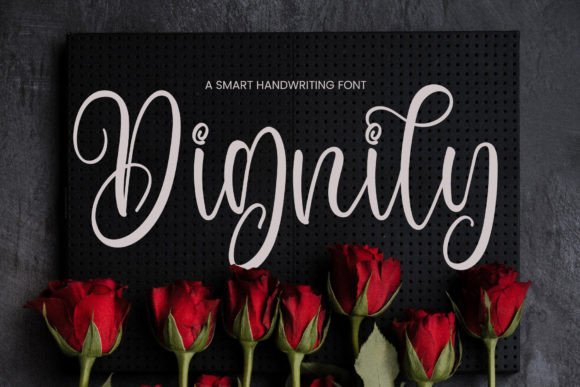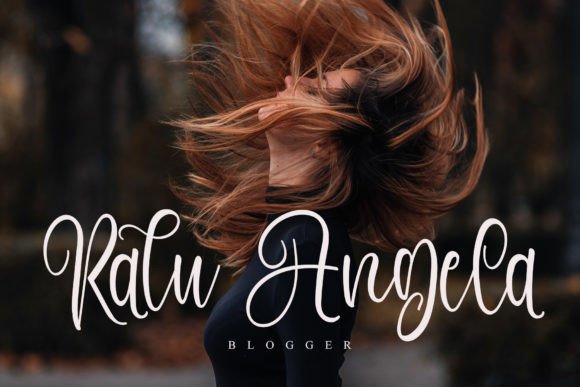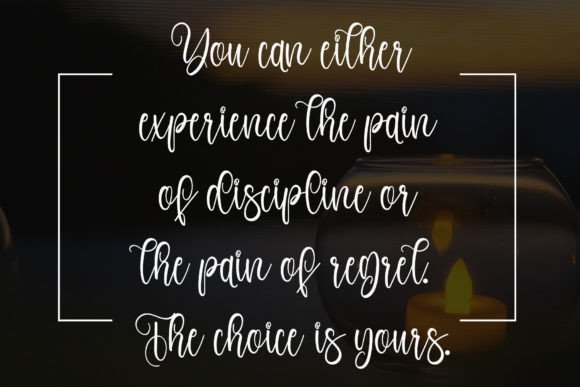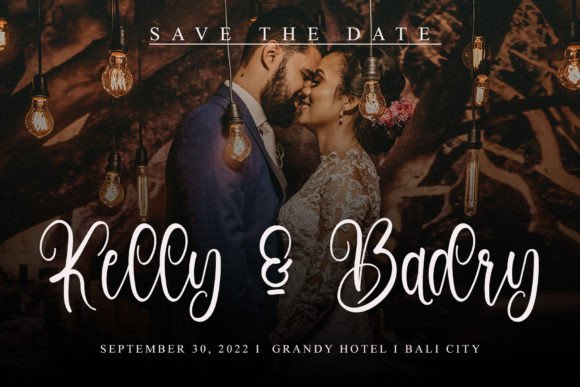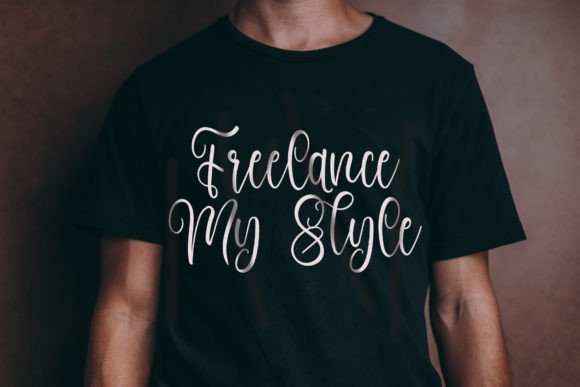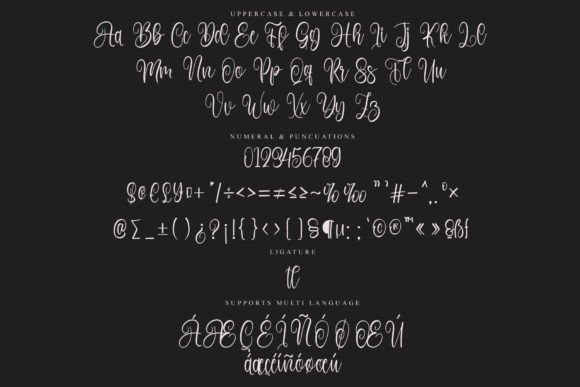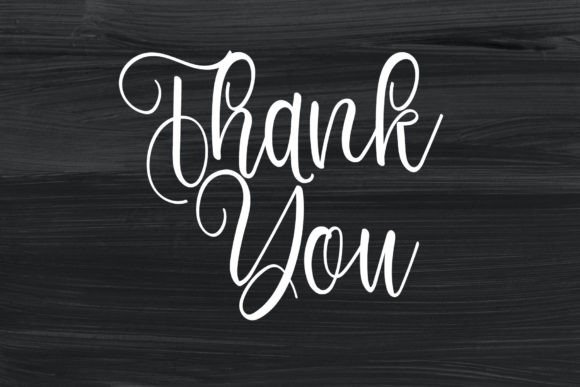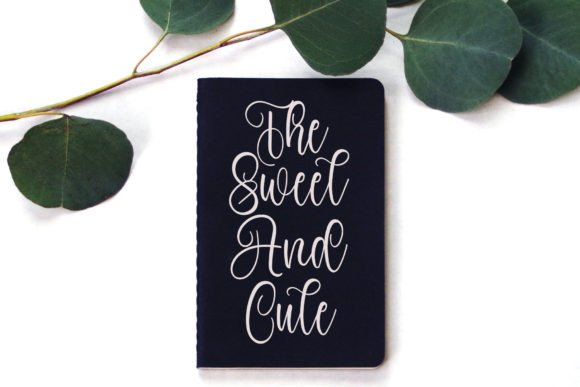
Dignity Font
About Dignity Font
“Dignity” is a stylish handwritten font that exudes a contemporary atmosphere while paying homage to timeless classic calligraphy. With its impeccable form and balanced design, this font is crafted to elevate the beauty of your projects, whether they’re digital or printed.
The charm of “Dignity” lies in its ability to bring a sense of elegance and sophistication to your work. It seamlessly blends contemporary aesthetics with the timeless appeal of classic calligraphy, resulting in a font that is both versatile and visually striking.
This font is suitable for a wide range of design projects, including branding, logos, invitations, labels, and much more. It enhances your work, allowing you to convey your message with style and refinement.
As you incorporate “Dignity” into your creative process, you’ll discover its remarkable ability to enhance your designs, making them visually captivating and memorable. This font becomes a trusted tool for designers seeking to create projects that exude beauty and sophistication, leaving a lasting impression with a touch of contemporary elegance.
In summary, “Dignity” is a stylish handwritten font that masterfully blends contemporary aesthetics with classic calligraphy. Its impeccable form and versatility make it a valuable choice for designers looking to create visually striking and refined work. Allow “Dignity” to be your creative companion and watch how it enhances your designs, ensuring they radiate with elegance and a touch of contemporary charm, making them truly stand out and leave a lasting impression.